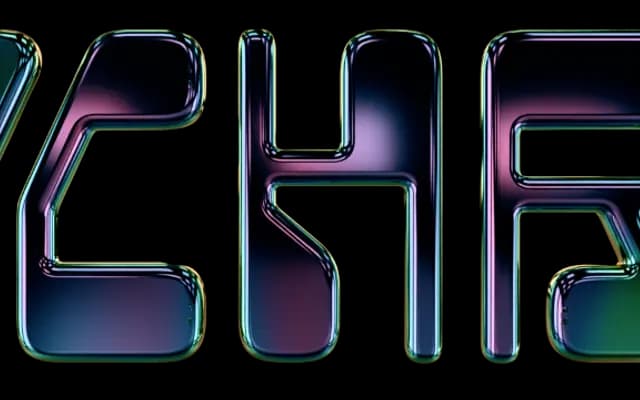
MD Polychrome
A four-style display typeface drawn from the aesthetic of Magnetic Ink Character Recognition type, refined for large-scale and poster use.
Taking MICR as its source, the design addresses the inherent unevenness of machine-readable letterforms: rebalancing texture, correcting spacing and pushing the optical range toward the largest print applications. Four styles named Nano, Kilo, Mega and Giga function as optical sizes, each tuned for different scales. A variable font is available on request with purchase of the complete family.
Derived from MICR (Magnetic Ink Character Recognition) letterforms, a highly specialised pre-digital machine-readable script. Its optical-size structure and large-scale intent place it firmly in the display category.